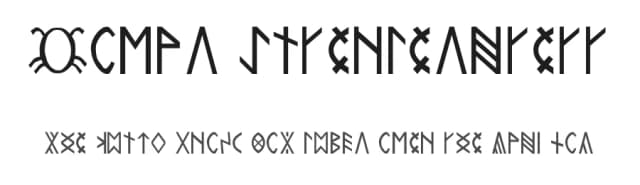
About Rovas Kiterjesztett Font
Rovas Kiterjesztett is a dingbat font designed by Dr. Gabor Hosszu. It includes 208 glyphs, a regular weight, TTF (TrueType) format, and 181 languages. Rovas Kiterjesztett is free to download; check the license details on this page before commercial use. Dingbat fonts like Rovas Kiterjesztett work best for icons, ornaments, bullet points, and decorative accents.
Rovas Kiterjesztett Font
Rovas Kiterjesztett Font is a dingbats typeface by Dr. Gabor Hosszu, ideal for logos, invitations, branding, and creative projects.